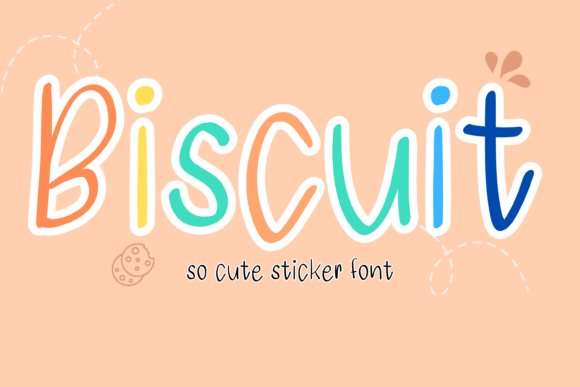
Biscuit Font: The Sweetest Addition to Your Design Projects
Are you looking for a font that adds a touch of warmth and personality to your designs? Look no further than the Biscuit font, a delightful handwritten script that’s perfect for a wide range of projects. In this article, we’ll dive into the world of Biscuit font, exploring its features, uses, and benefits for designers and crafters.
What is Biscuit Font?
Biscuit font is a charming, handcrafted typeface that’s designed to bring a sense of love and care to your designs. Its soft, rounded edges and flowing curves make it an ideal choice for projects that require a personal touch. Whether you’re working on a logo, branding project, or home décor design, Biscuit font is sure to add a dash of sweetness to your creations.
Features of Biscuit Font
So, what makes Biscuit font so special? Here are some of its key features:
• Cute and playful: Biscuit font has a whimsical feel that’s perfect for designs that require a touch of playfulness.
• Handwritten: This font is carefully crafted to mimic the look of handwritten script, giving it a personal and unique feel.
• Lovely script taste: Biscuit font has a smooth, flowing quality that’s reminiscent of elegant script fonts.
• Versatile: This font is suitable for a wide range of projects, from logos and branding to home décor and product packaging.
Uses of Biscuit Font
So, what can you use Biscuit font for? The possibilities are endless! Here are some ideas to get you started:
• Logos and branding projects: Add a touch of personality to your brand with Biscuit font.
• Home décor designs: Use Biscuit font to create beautiful wall art, signs, and other home décor items.
• Product packaging: Make your products stand out with custom packaging featuring Biscuit font.
• Mugs and ceramics: Add a personal touch to your mugs, tumblers, and other ceramics with Biscuit font.
• Quotes and posters: Create inspiring quotes and posters with Biscuit font.
• Shopping bags and T-shirts: Use Biscuit font to create custom shopping bags and T-shirts.
• Book covers and name cards: Add a touch of elegance to your book covers and name cards with Biscuit font.
• Invitation cards and greeting cards: Create beautiful invitation cards and greeting cards with Biscuit font.
• Labels and photography: Use Biscuit font to create custom labels and watermarks for your photos.
Benefits of Using Biscuit Font
So, why should you choose Biscuit font for your projects? Here are some benefits:
• Unique and eye-catching: Biscuit font is sure to grab attention and make your designs stand out.
• Emotional connection: The personal, handwritten feel of Biscuit font can help create an emotional connection with your audience.
• Flexibility: Biscuit font is suitable for a wide range of projects and can be used in various design contexts.
• Ease of use: This font is easy to read and works well in both digital and print formats.
In conclusion, Biscuit font is a delightful addition to any design project. Its cute, handwritten feel and lovely script taste make it perfect for a wide range of applications. Whether you’re a designer, crafter, or DIY enthusiast, Biscuit font is sure to bring a touch of warmth and personality to your creations. So why not give it a try and see how Biscuit font can sweeten up your designs?
Get Creative with Biscuit Font!
Ready to get creative with Biscuit font? Here are some tips to get you started:
• Experiment with colors: Try pairing Biscuit font with different colors to create unique and eye-catching designs.
• Mix and match: Combine Biscuit font with other fonts and graphics to create interesting and dynamic designs.
• Play with textures: Add texture to your designs by pairing Biscuit font with different textures and patterns.
With Biscuit font, the possibilities are endless. So don’t be afraid to get creative and experiment with different design ideas. Happy designing!